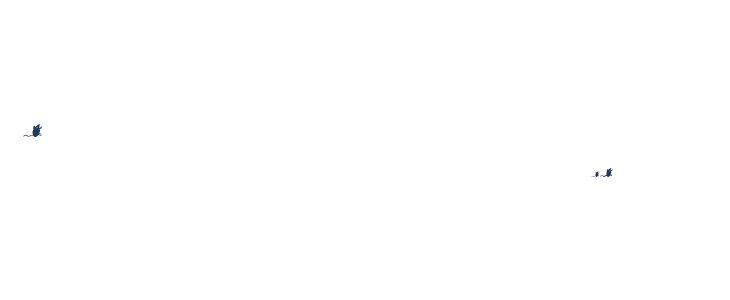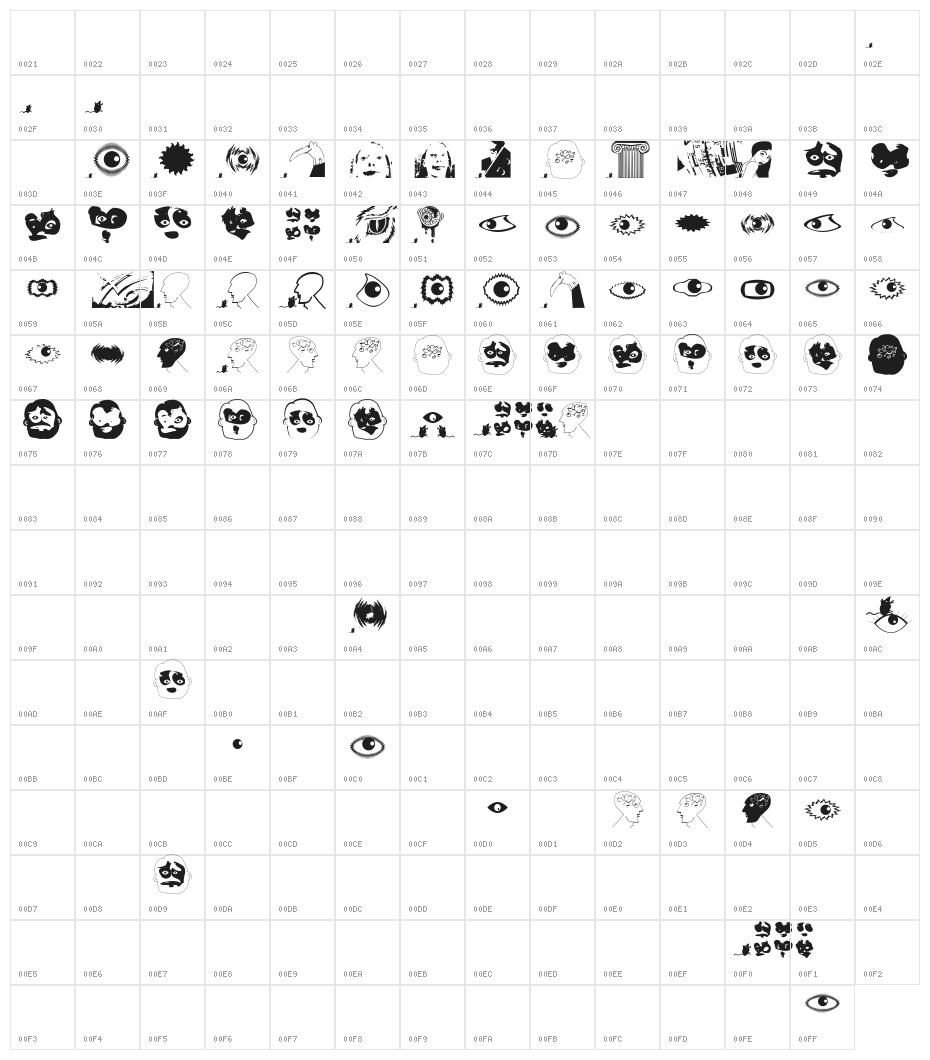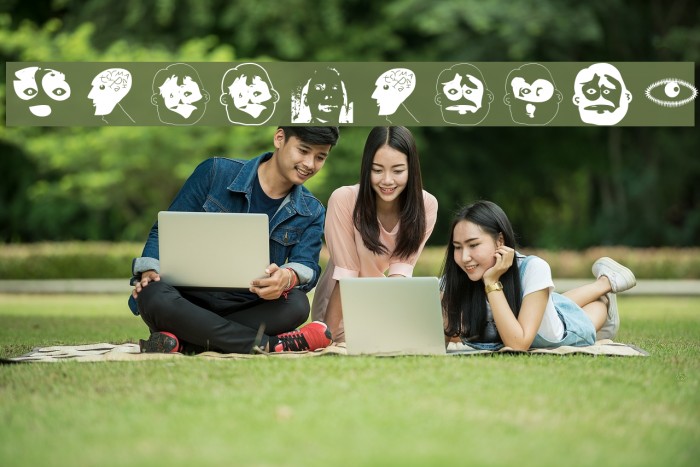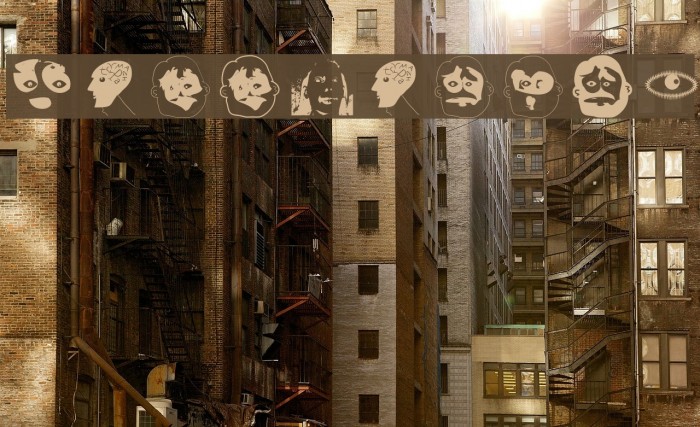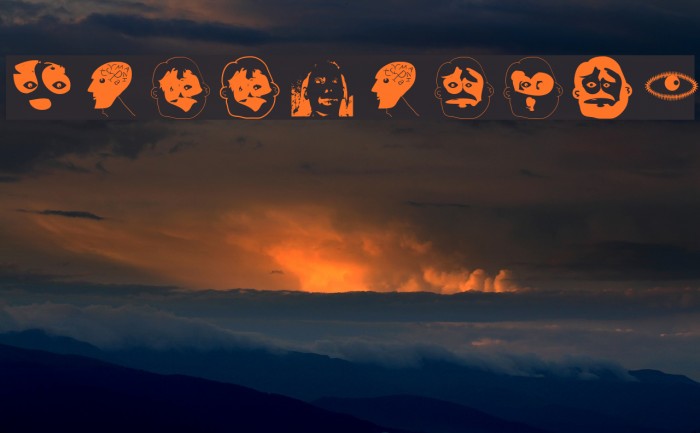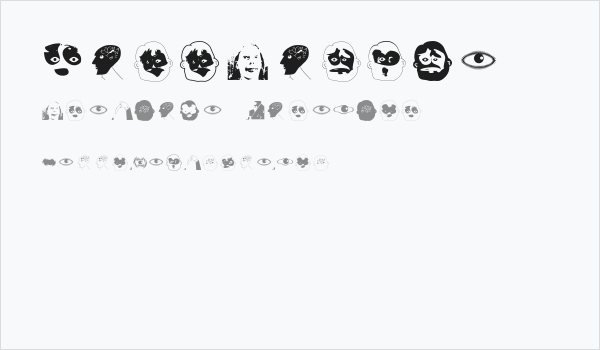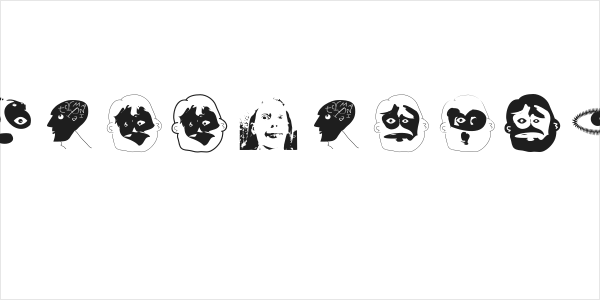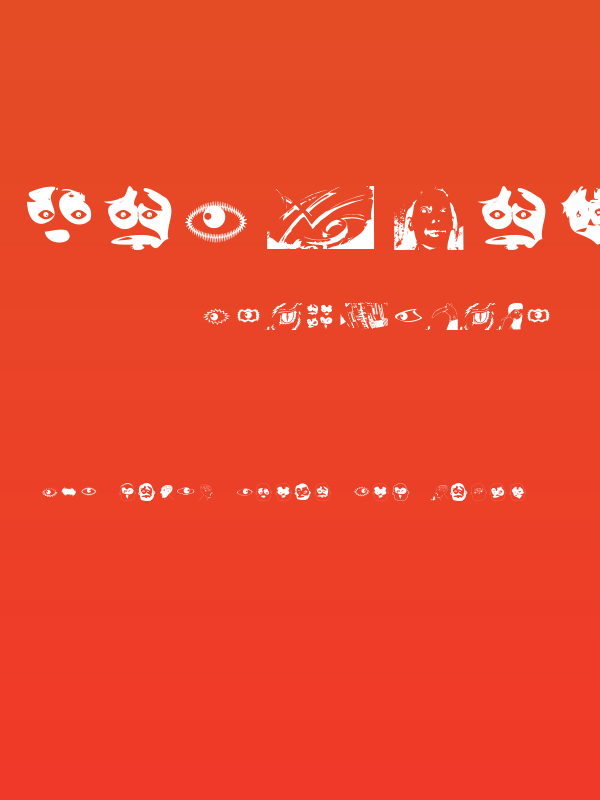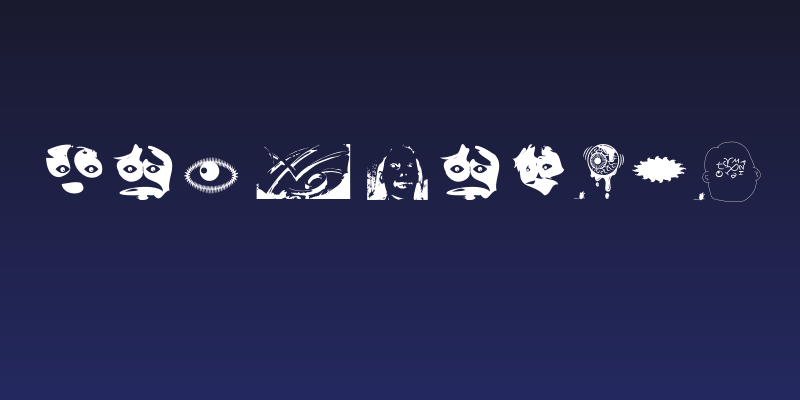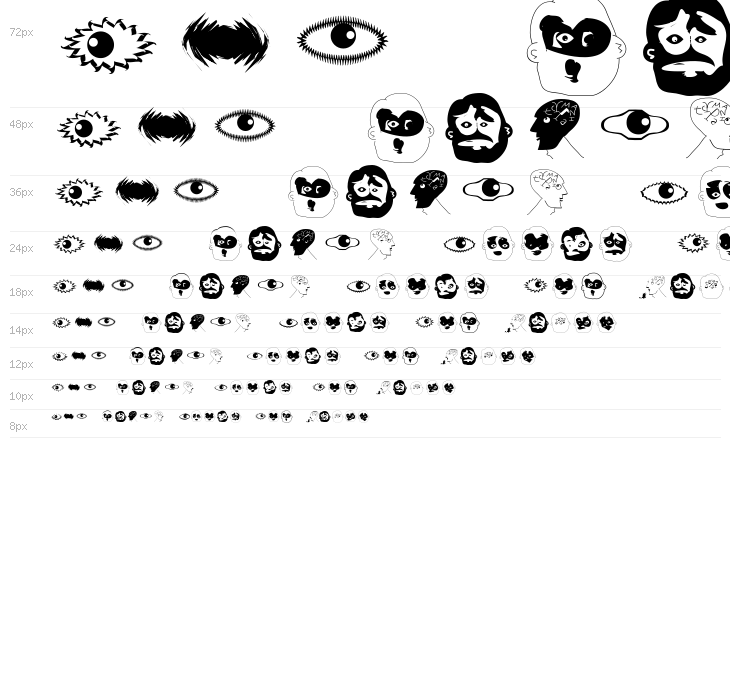
MiszCinque Font
MiszCinque Description
A highly decorative and illustrative font composed of expressive cartoon faces, eyes, and abstract shapes, each glyph featuring unique, hand-drawn character art rather than traditional letterforms.
| Overall Style | Decorative, Whimsical, Artistic |
| Use Case | Logos, Posters, Art projects, Headlines |
| Proposed Projects | ChildrenΓ’β¬β’s books, comic titles, playful posters, art projects, creative branding. |